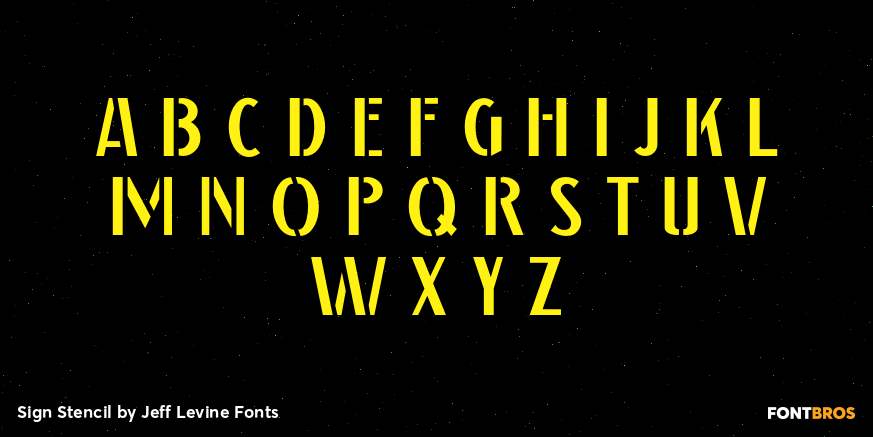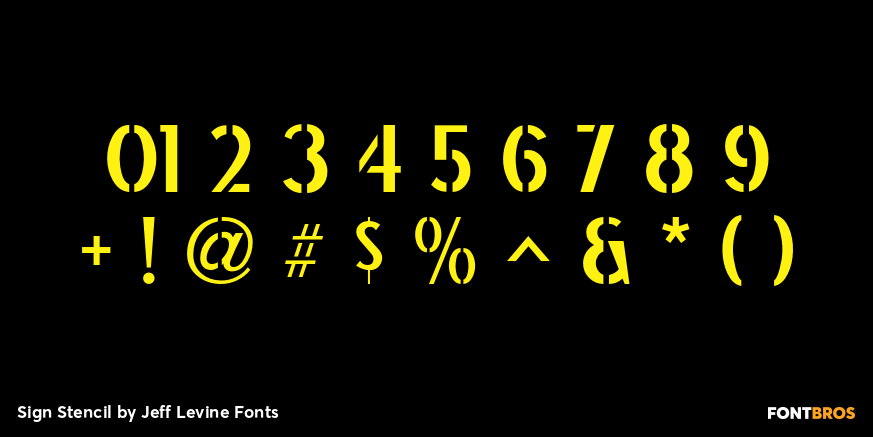
Sign Stencil
Sign Stencil JNL was modeled from some vintage lettering stencils spotted in an online auction that were part of a store sign making kit. A variety of styles, sizes and designs were contained within a carrying case along with paints, brushes and instructions on how to paint attractive signs.
The original stencils were set up in such a way that painting individual parts overlapped as per the directions would produce solid letters as if painted by hand.
For Sign Stencil JNL the letters were left in a traditional stencil pattern.